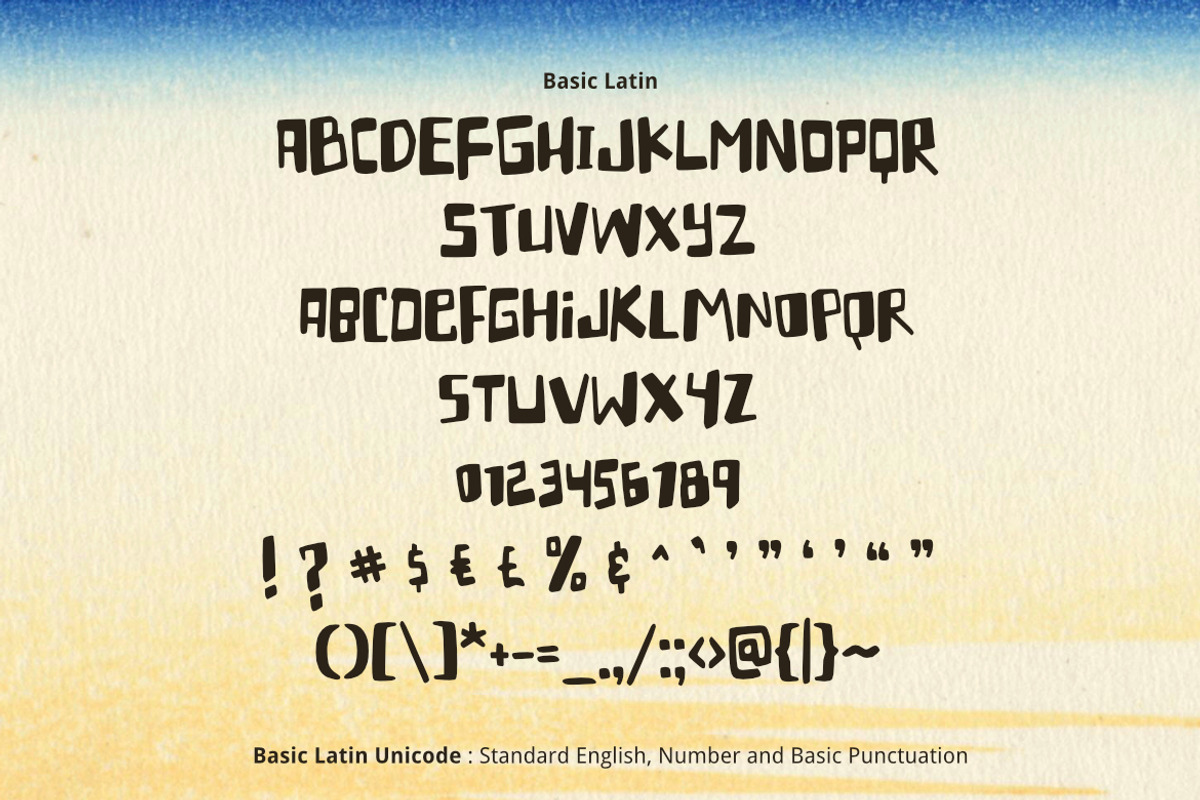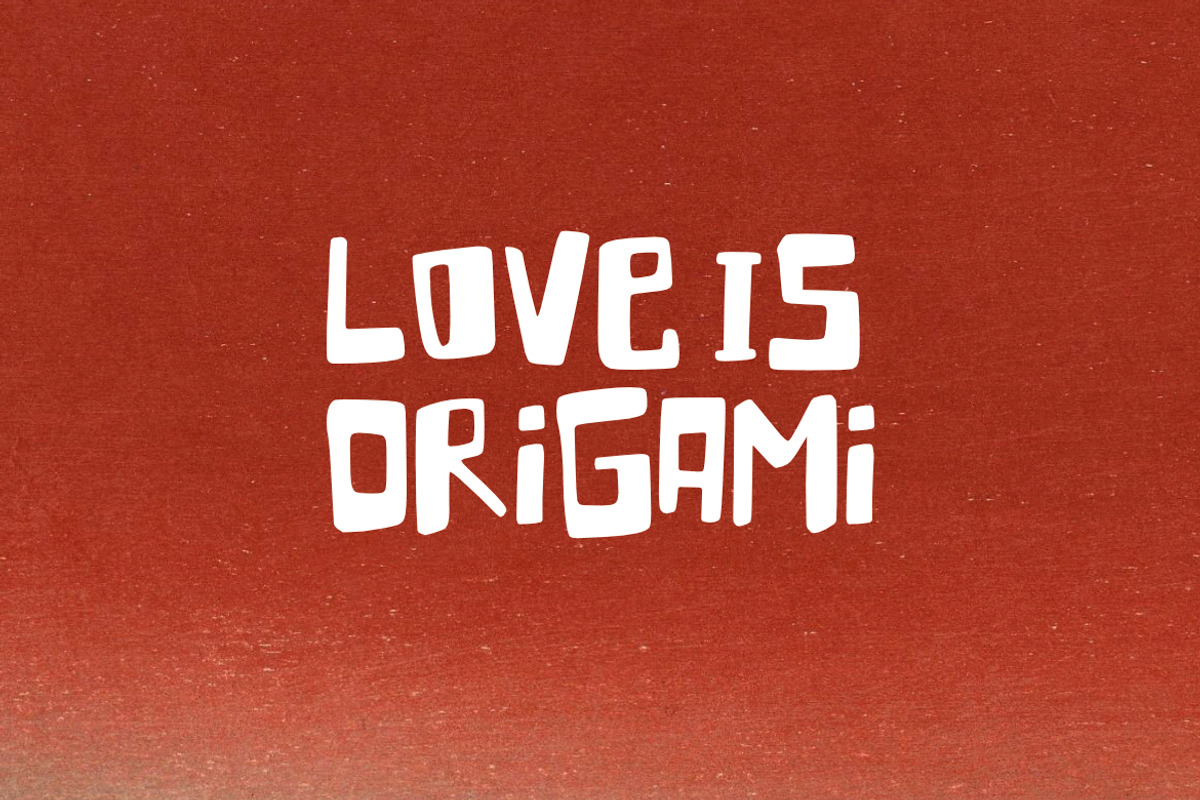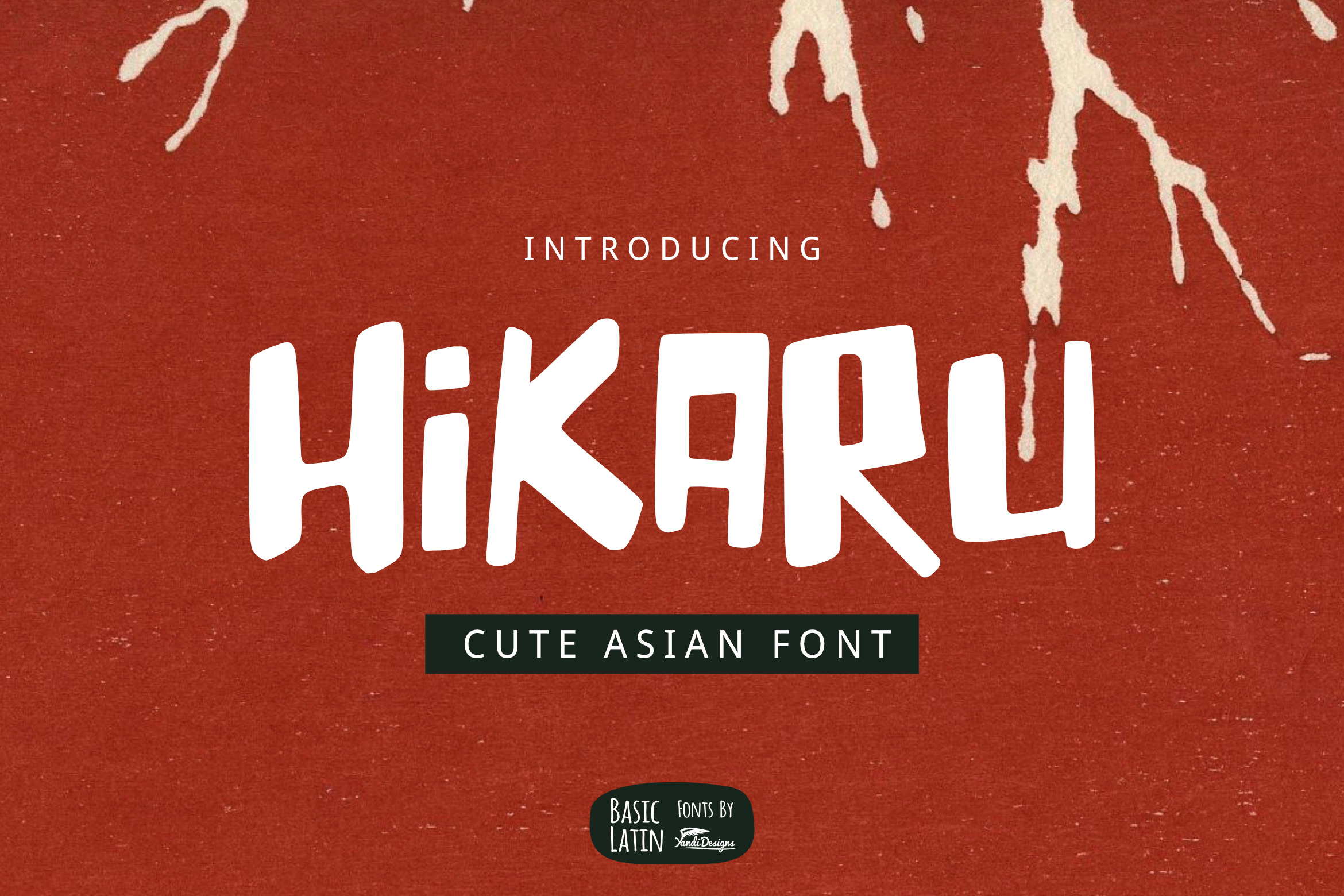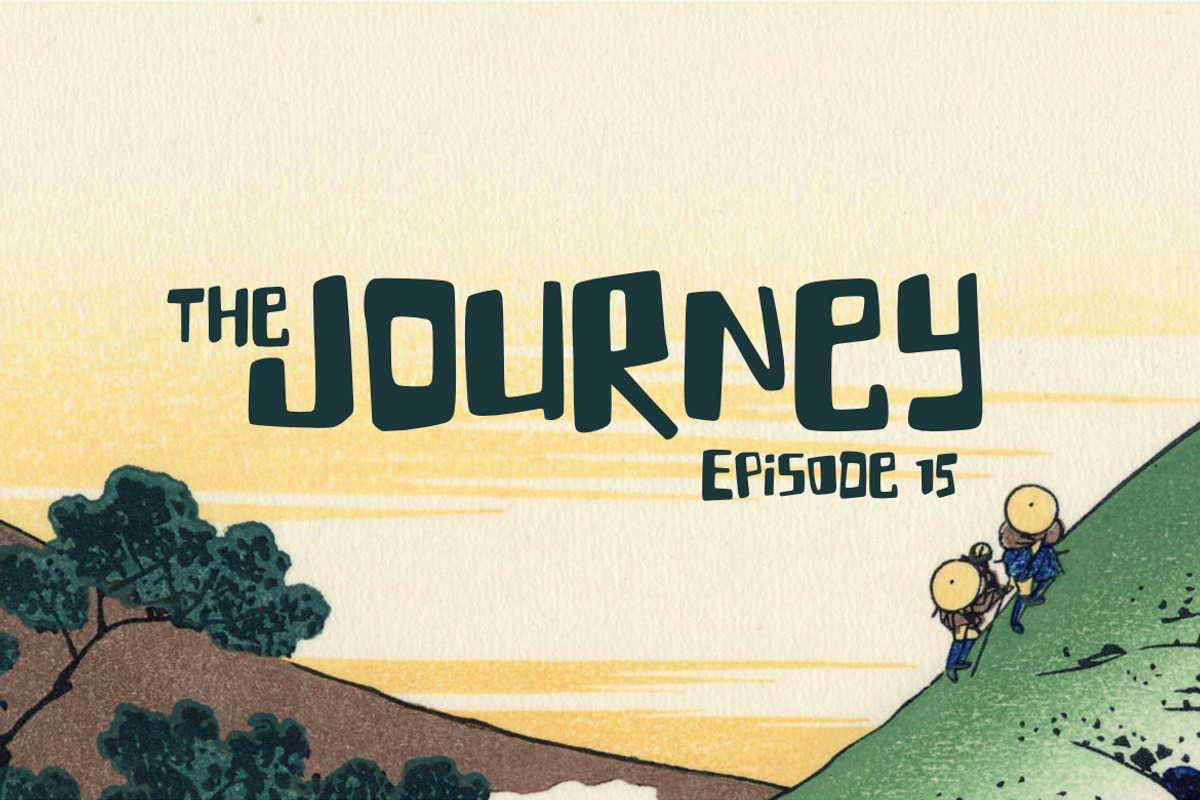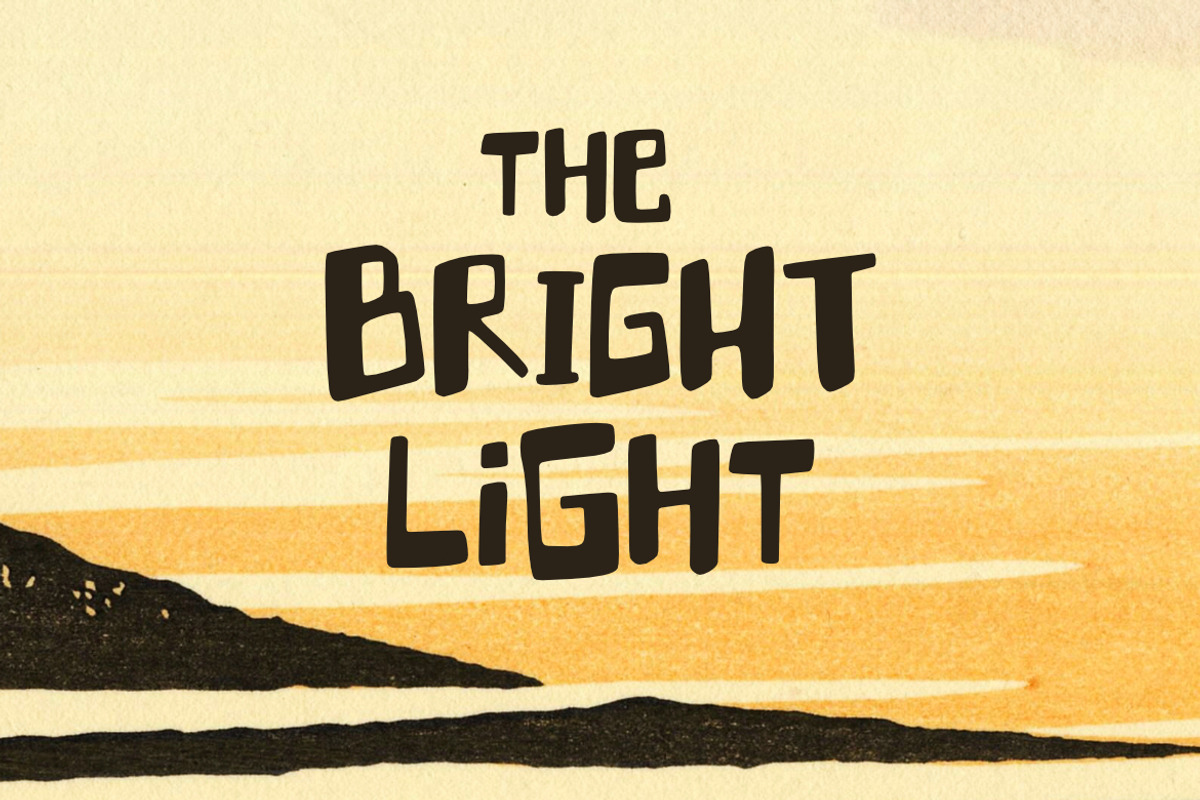
Hikaru Asian Font
Hikaru "Light" is lovely , cute, simple, playful, artistic Asian Japanese multipurpose font , suitable for many project children book, quotes, logo , heading , title etc.
Basic Latin (Standard English character , number, symbol)